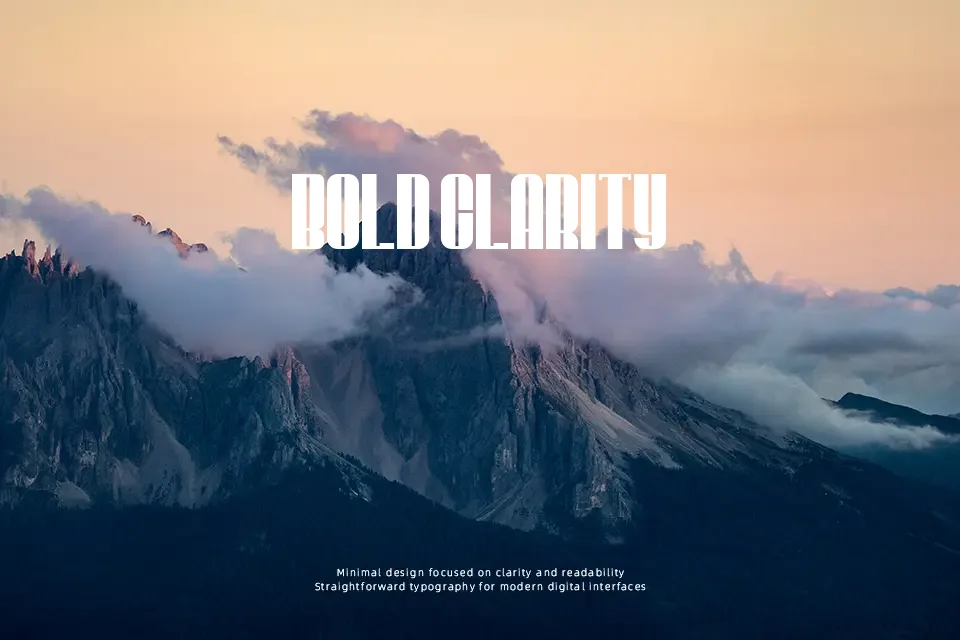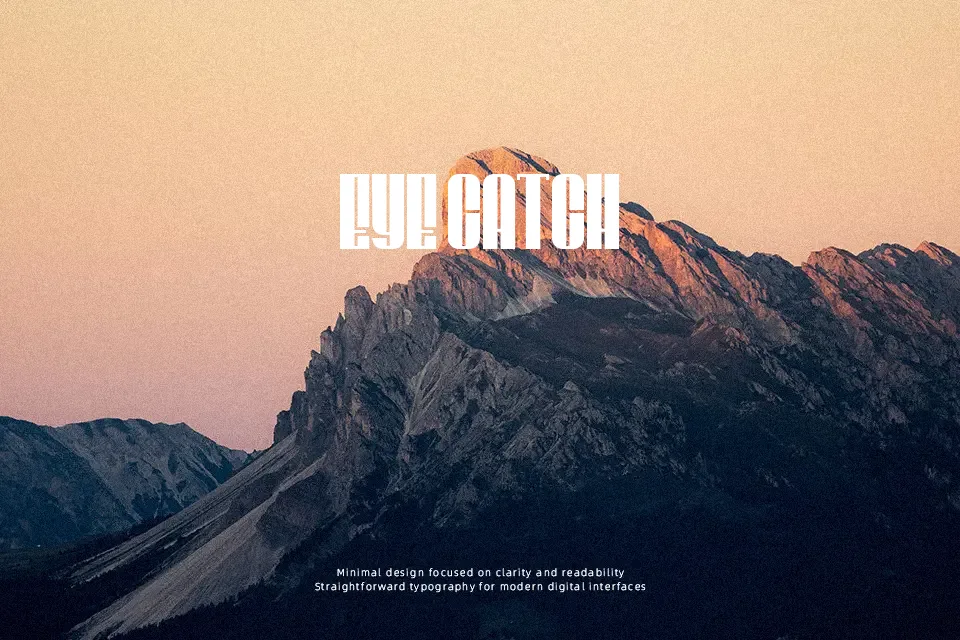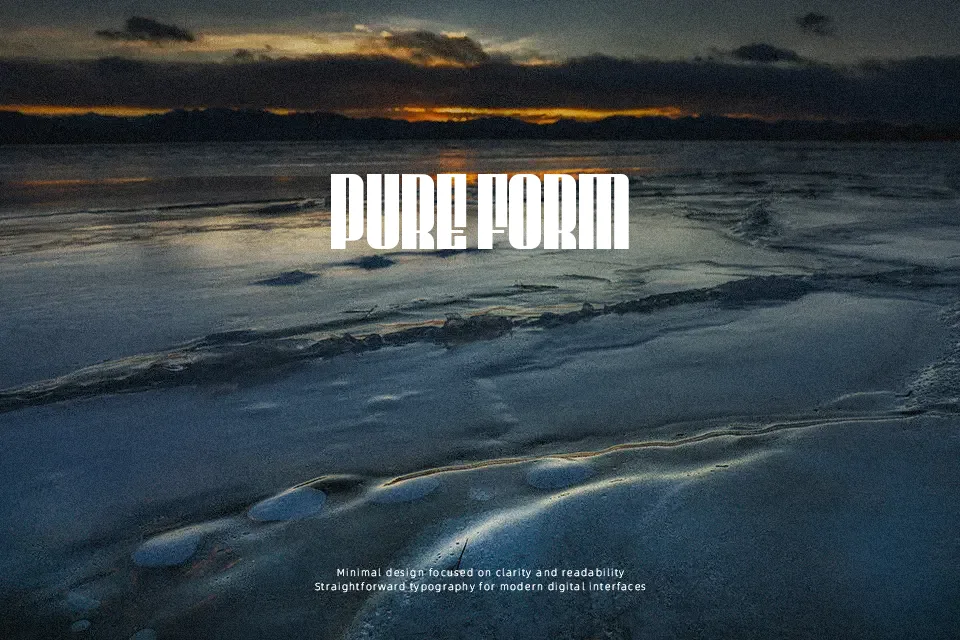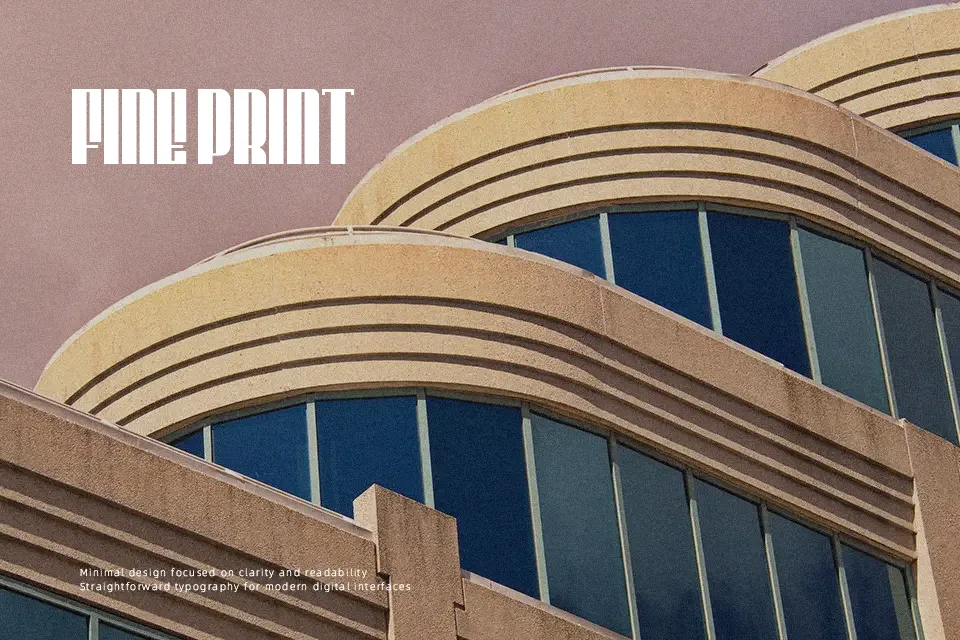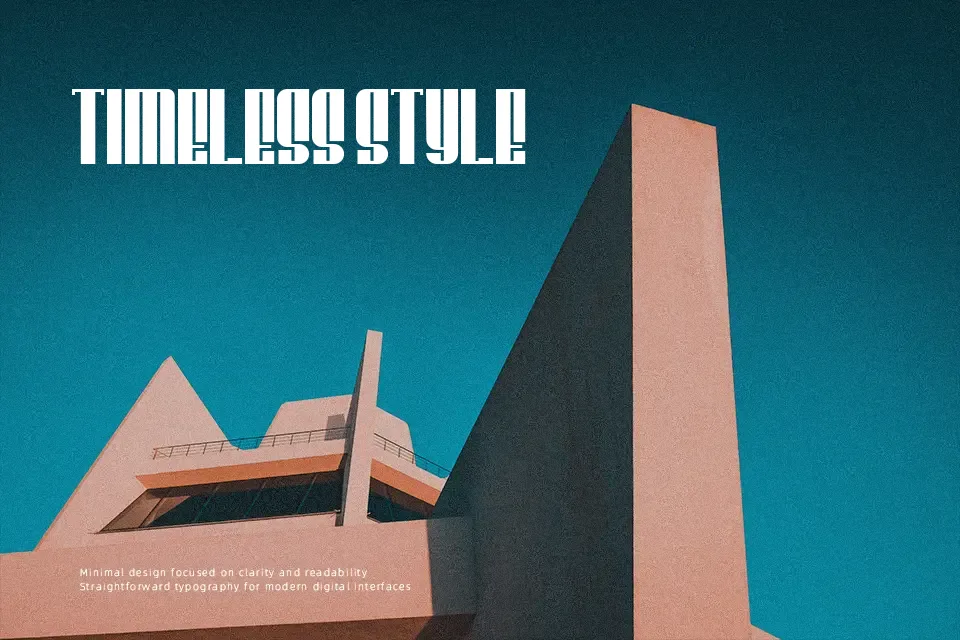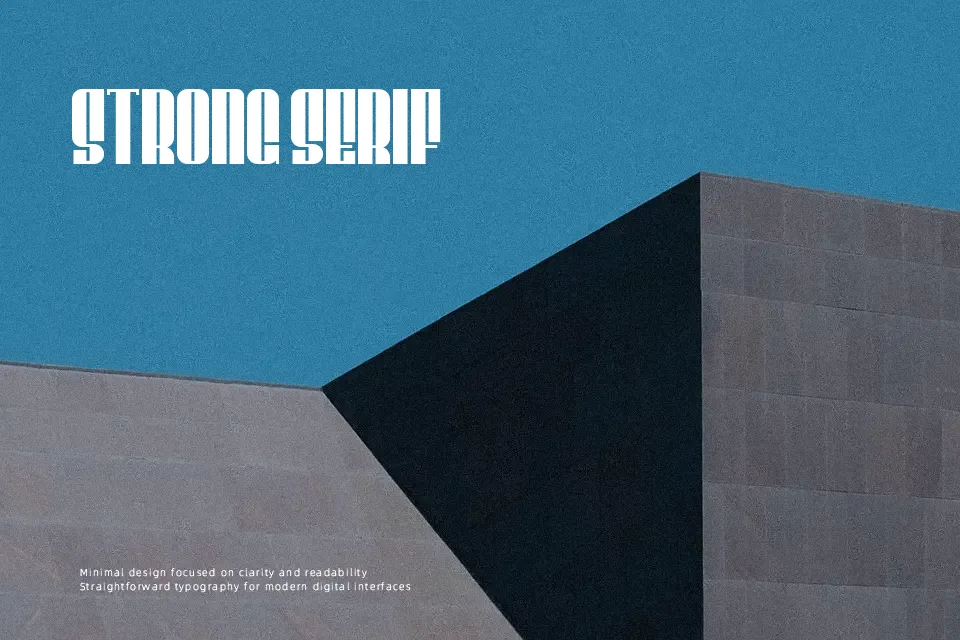
Cedric Font
Cedric Font features elongated vertical proportions with compact letter spacing and stylized retro terminals that give each character a distinct vintage aesthetic. The solid stroke thickness provides strong contrast against light backgrounds, making the typeface immediately noticeable in large headlines, fashion editorial titles, and retail product packaging. Tight kerning between characters maintains visual density, though this compact spacing significantly hinders legibility at smaller text sizes. While the letterforms deliver dramatic artistic flair for short display treatments, extended reading comfort drops sharply across continuous copy. The typeface is best reserved for striking header compositions rather than dense information layouts.
Best For: vintage merchandise packaging, fashion editorial headlines, music festival posters, apparel graphics
Not Ideal For: long paragraph text, small interface labels, mobile application body copy, dense editorial layouts
Perfect for fashion, headline, and logo, with a bold and condensed style.